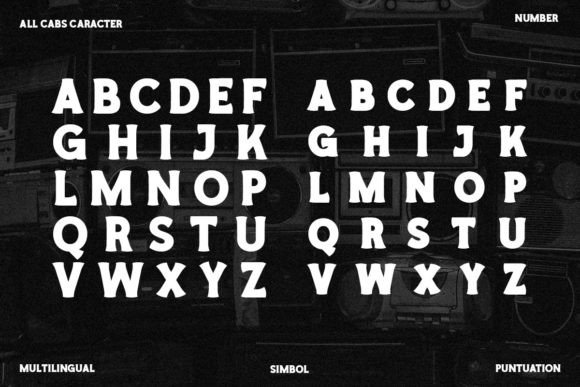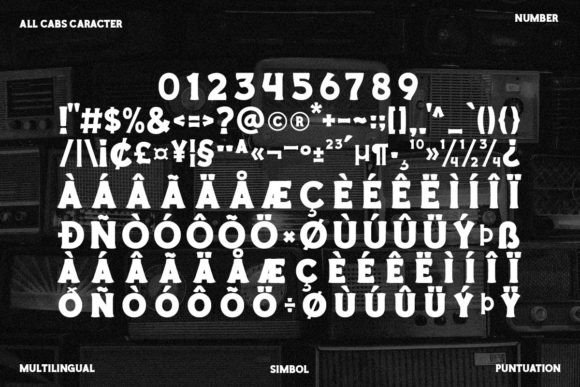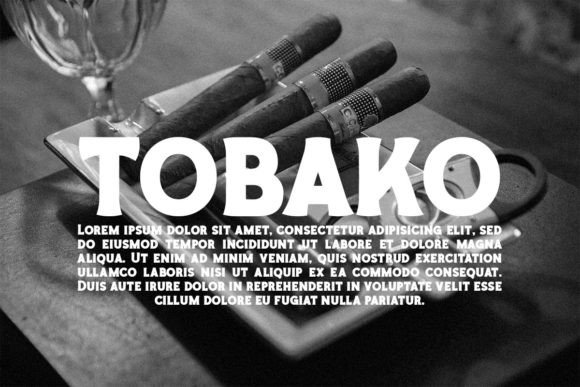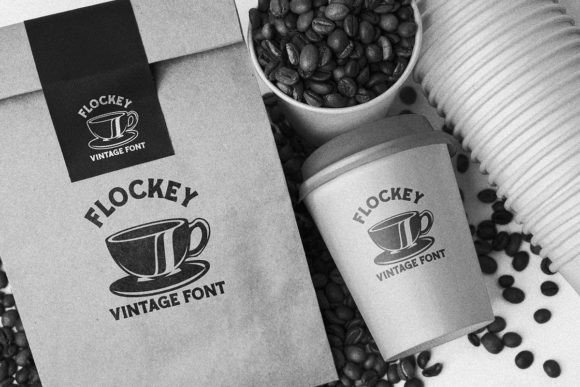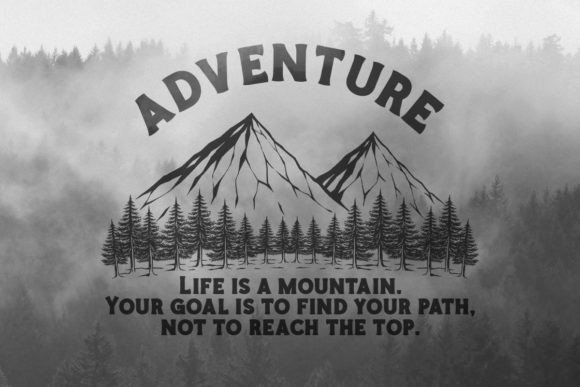
Discover the Charm of Flockey Font: The Ultimate Vintage Typeface
Are you a designer or crafter looking for the perfect vintage typeface to add a touch of nostalgia to your projects? Look no further than the Flockey font. This versatile and stylish font is ideal for a wide range of applications, from video game titles and posters to clothing, album covers, and movie titles. In this article, we’ll explore the unique characteristics of the Flockey font and why it’s the perfect choice for adding a vintage and retro touch to your designs.
The Perfect Vintage Typeface
The Flockey font is a carefully crafted typeface that embodies the spirit of vintage design. Its unique blend of classic and modern elements makes it perfect for designers and crafters who want to add a touch of nostalgia to their work. With its bold and eye-catching letters, the Flockey font is sure to grab attention and evoke a sense of nostalgia in your audience.
What Makes Flockey Font So Special?
So, what sets the Flockey font apart from other vintage typefaces? Here are just a few of its standout features:
- Unique lettering style: The Flockey font features a distinctive lettering style that’s reminiscent of classic vintage designs. Its bold lines, curves, and geometric shapes make it perfect for creating eye-catching titles and headings.
- Highly versatile: The Flockey font is incredibly versatile and can be used for a wide range of projects, from digital designs to print materials.
- Easily customizable: The Flockey font is easy to customize, making it perfect for designers who want to add their own personal touch to their work.
Uses for Flockey Font
The Flockey font is perfect for a wide range of projects, including:
- Video game titles: Add a touch of nostalgia to your video game titles with the Flockey font. Its bold and eye-catching letters are sure to grab attention and evoke a sense of classic gaming.
- Posters: Create eye-catching posters with the Flockey font. Its unique lettering style and bold lines make it perfect for creating striking headings and titles.
- Clothing: Add a touch of vintage style to your clothing designs with the Flockey font. Its classic lettering style is perfect for creating stylish and eye-catching graphics.
- Album covers: Give your album covers a vintage makeover with the Flockey font. Its bold and eye-catching letters are sure to grab attention and evoke a sense of classic music.
- Movies: Add a touch of nostalgia to your movie titles with the Flockey font. Its unique lettering style and bold lines make it perfect for creating striking titles and headings.
Tips for Using Flockey Font
Here are a few tips for getting the most out of the Flockey font:
- Experiment with different colors: The Flockey font looks great in a wide range of colors, so don’t be afraid to experiment and find the perfect color scheme for your project.
- Use it in combination with other fonts: The Flockey font pairs well with a wide range of other fonts, so try using it in combination with other typefaces to create a unique and eye-catching design.
- Customize it to fit your needs: The Flockey font is easily customizable, so don’t be afraid to make it your own. Change the lettering style, add your own graphics, or experiment with different textures and patterns.
In conclusion, the Flockey font is the perfect vintage typeface for designers and crafters who want to add a touch of nostalgia to their projects. Its unique lettering style, versatility, and ease of customization make it perfect for a wide range of applications, from video game titles and posters to clothing, album covers, and movie titles. With its bold and eye-catching letters, the Flockey font is sure to grab attention and evoke a sense of classic style. So why wait? Download the Flockey font today and start adding a touch of vintage charm to your designs.